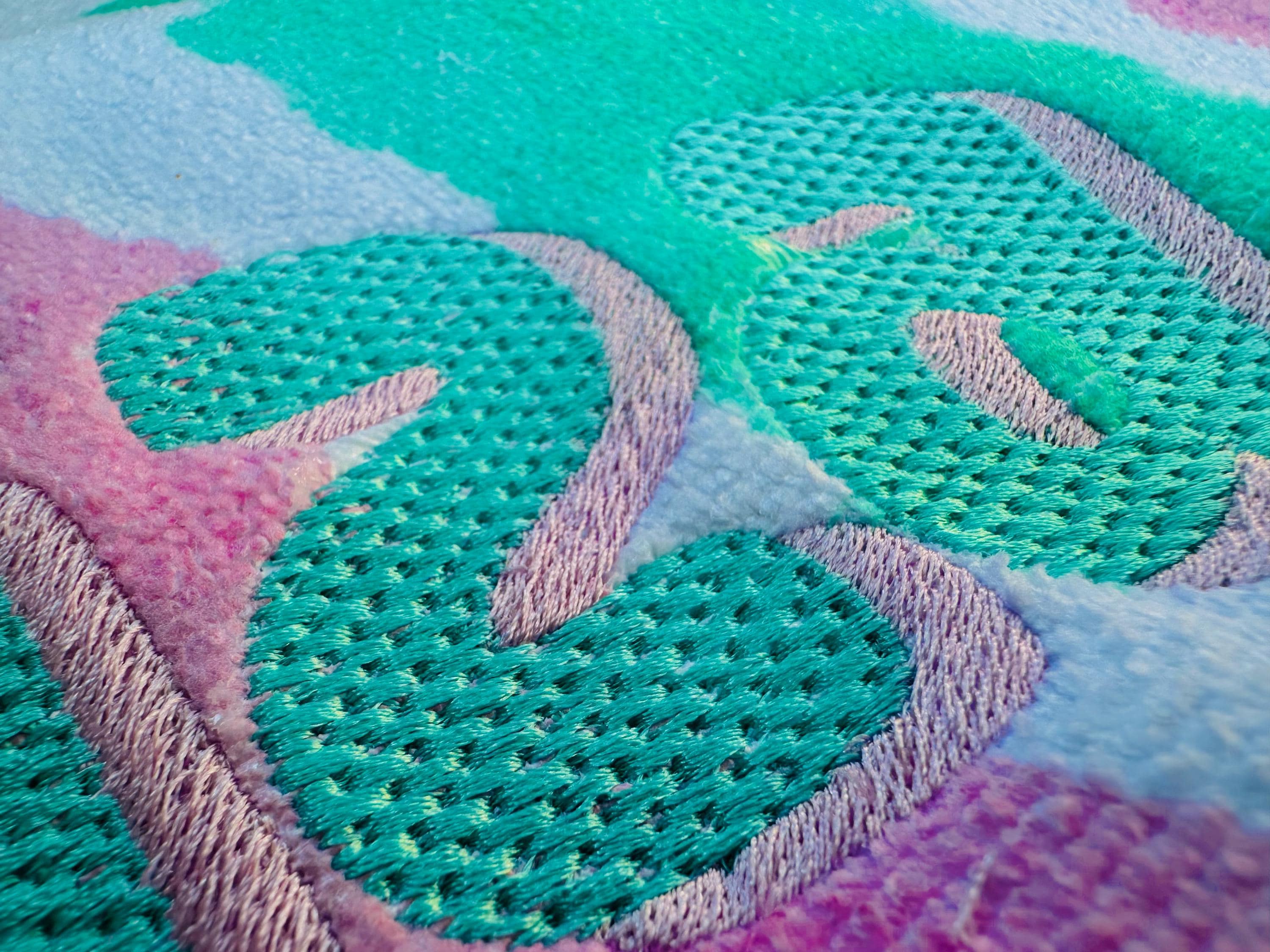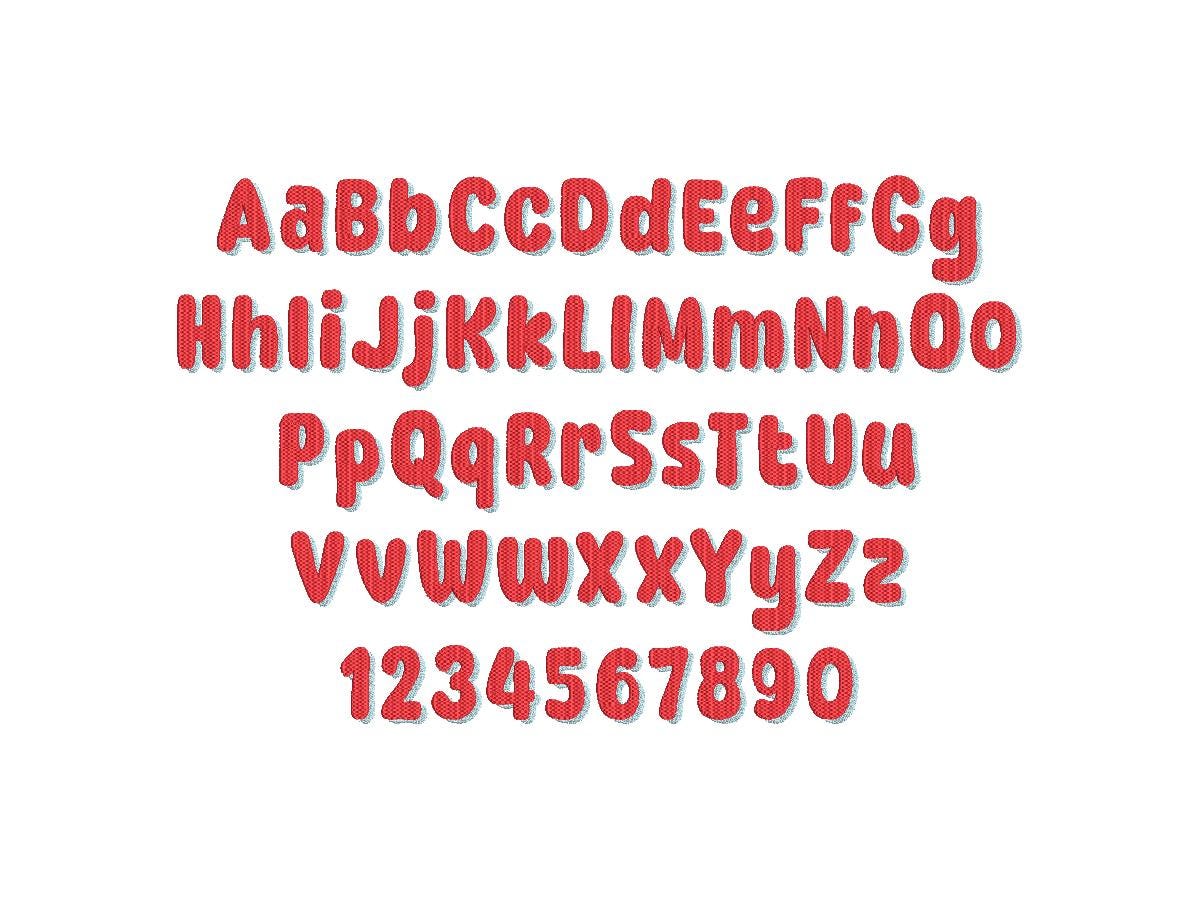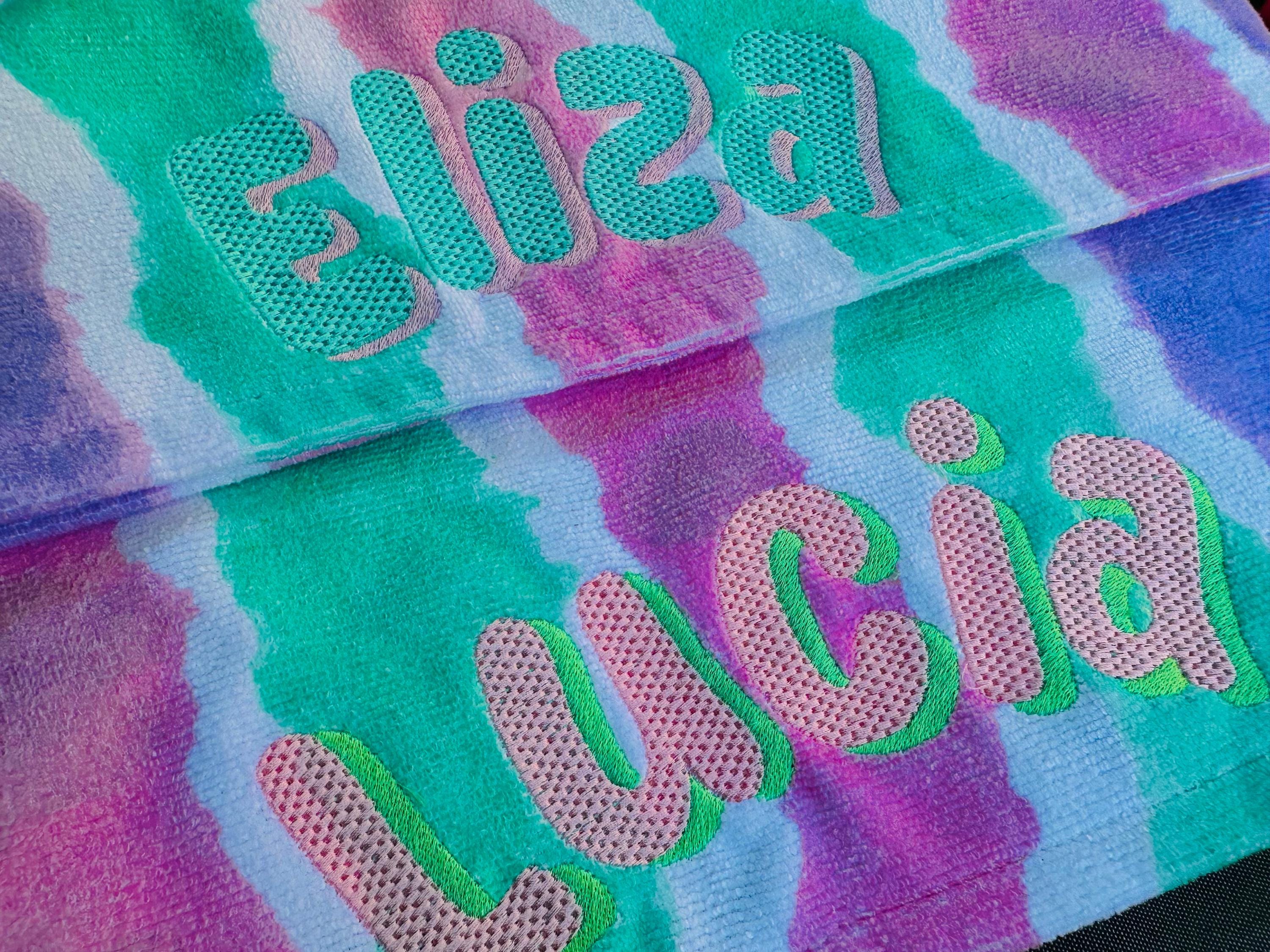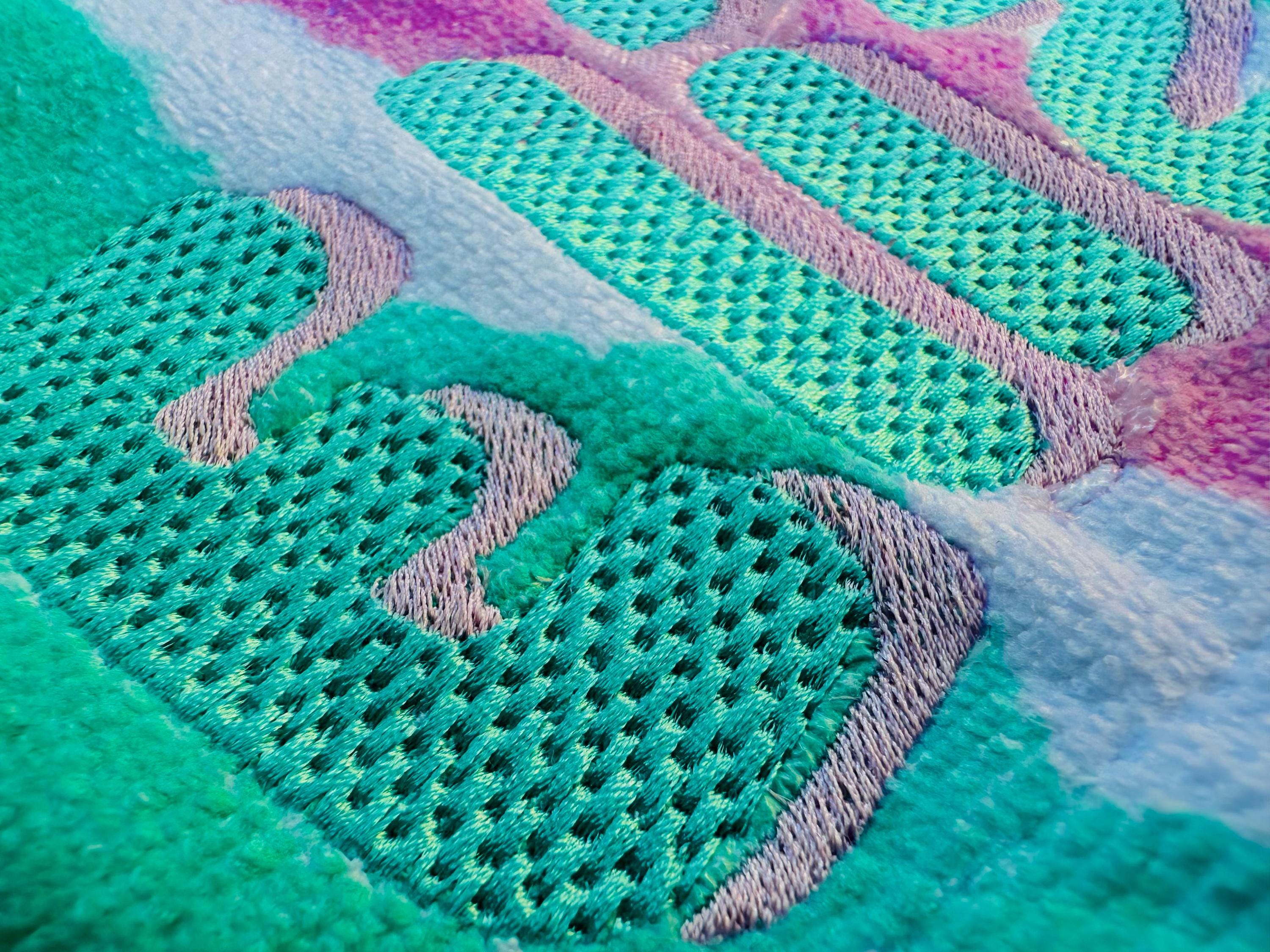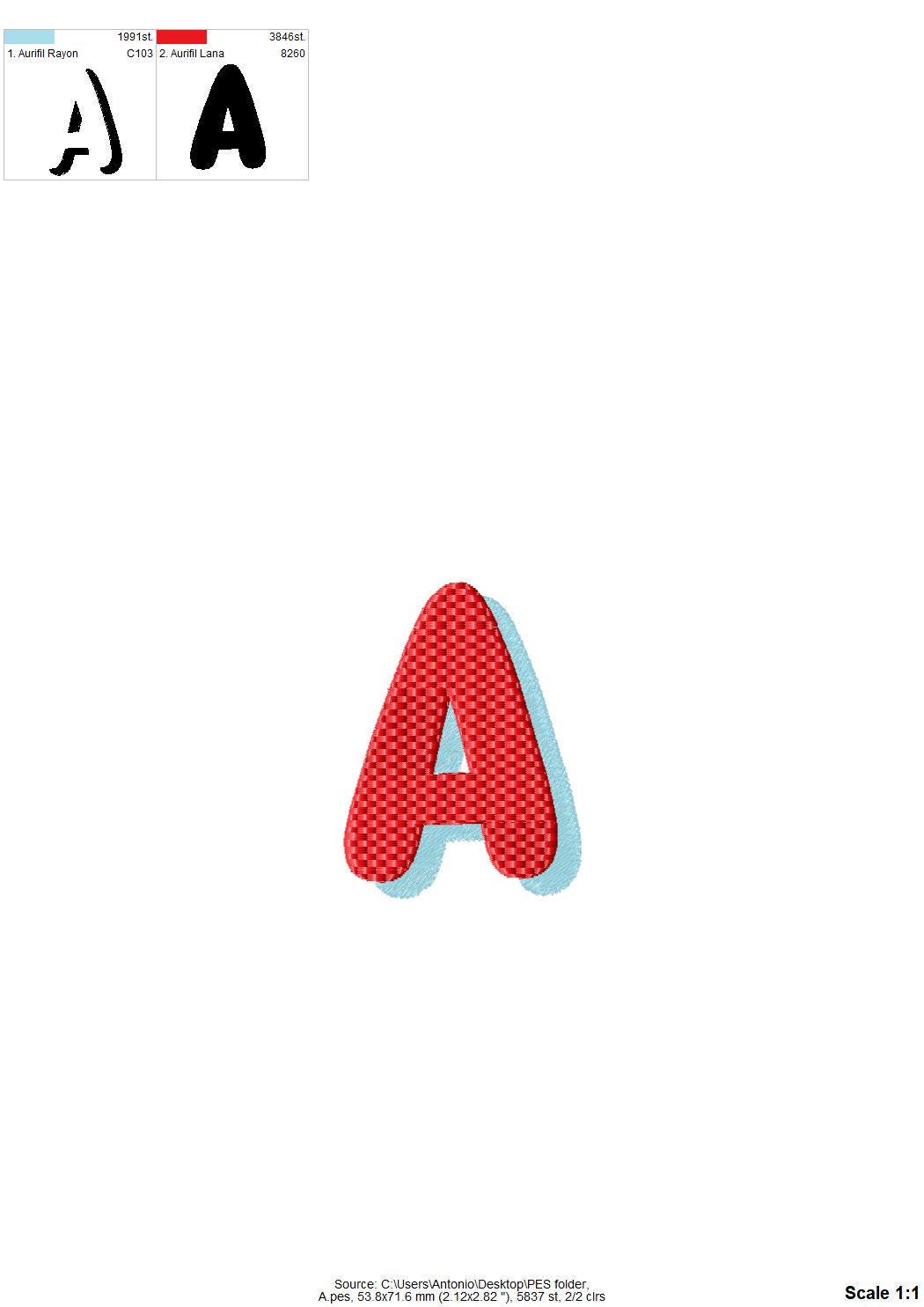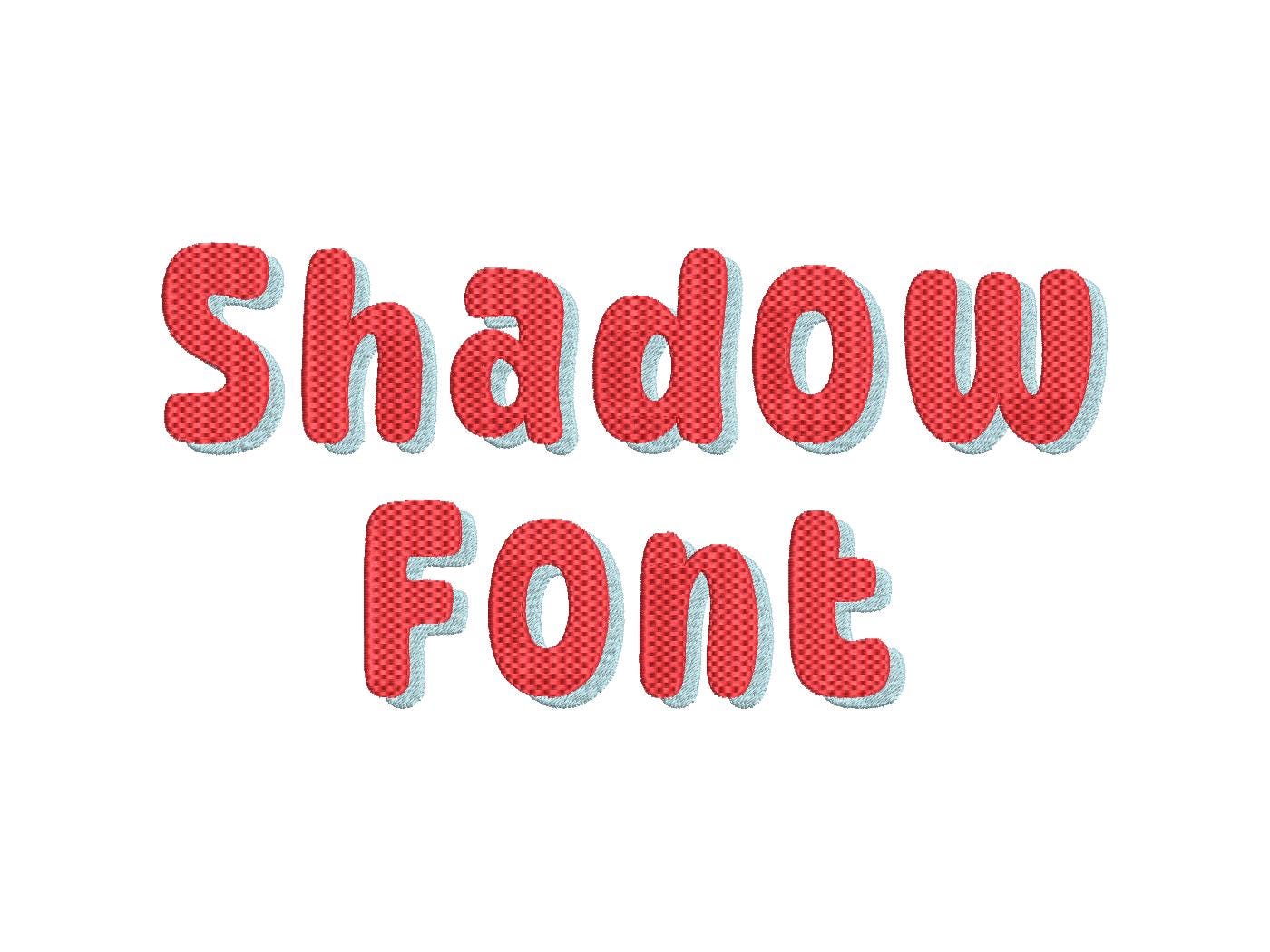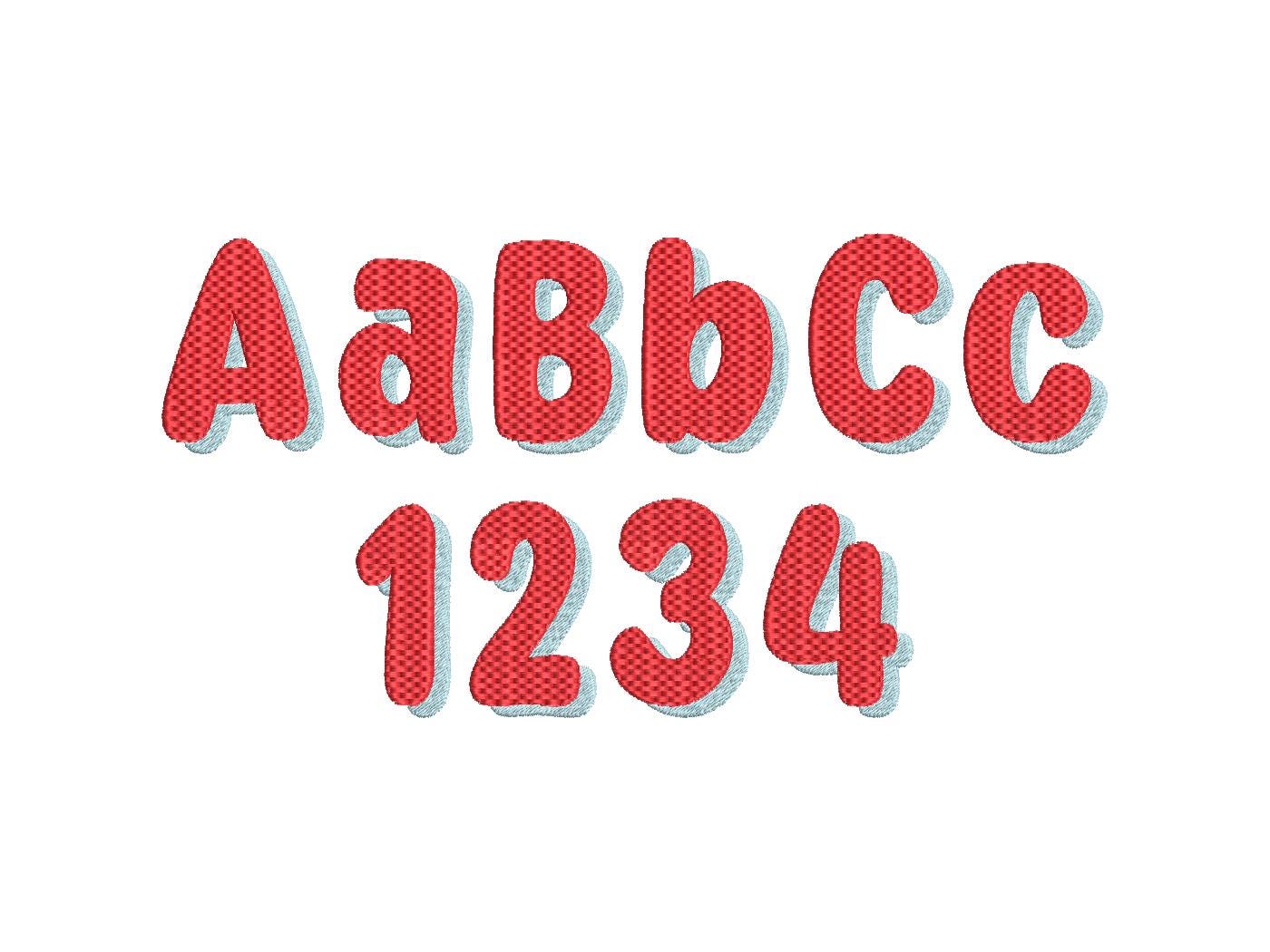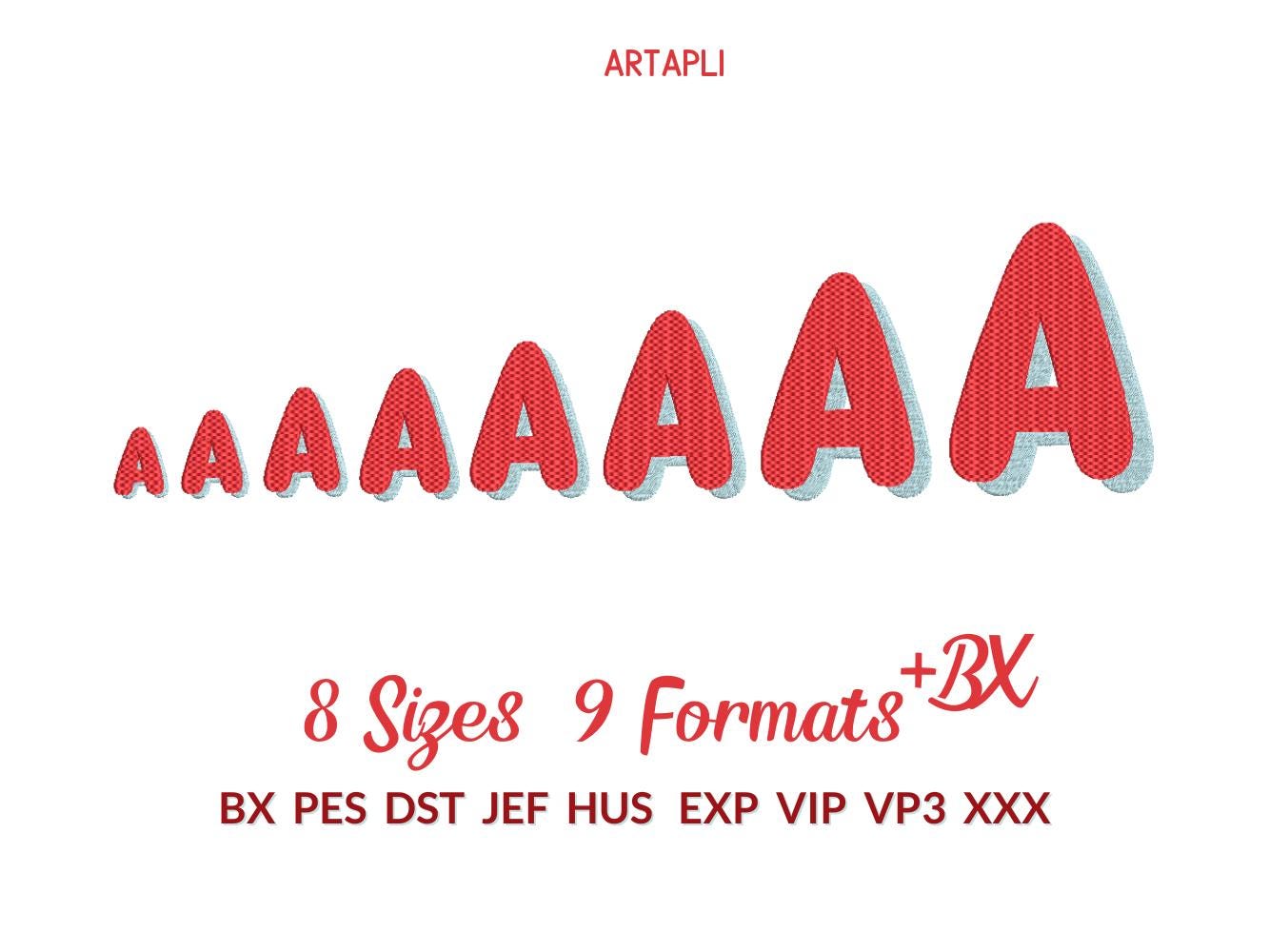
Waffle stitch Shadow Font awesome alphabet letters and numbers monogram machine embroidery designs multiple sizes 1.3 thru 4.8 inches and BX
This 2 color font has a nice waffle stitch, and fill stitch shadow.